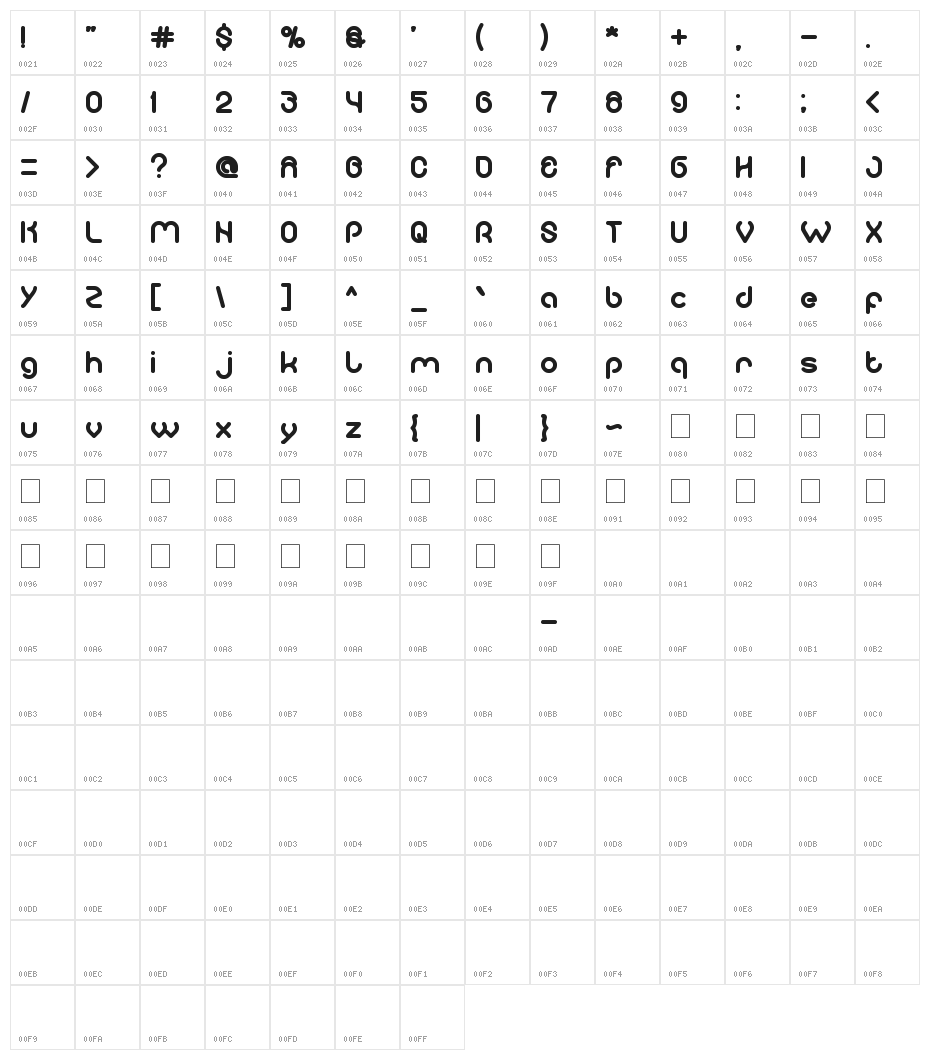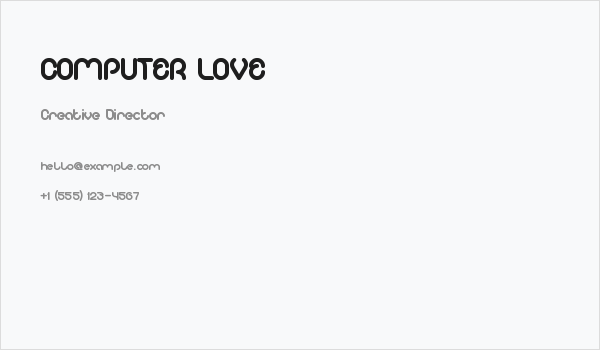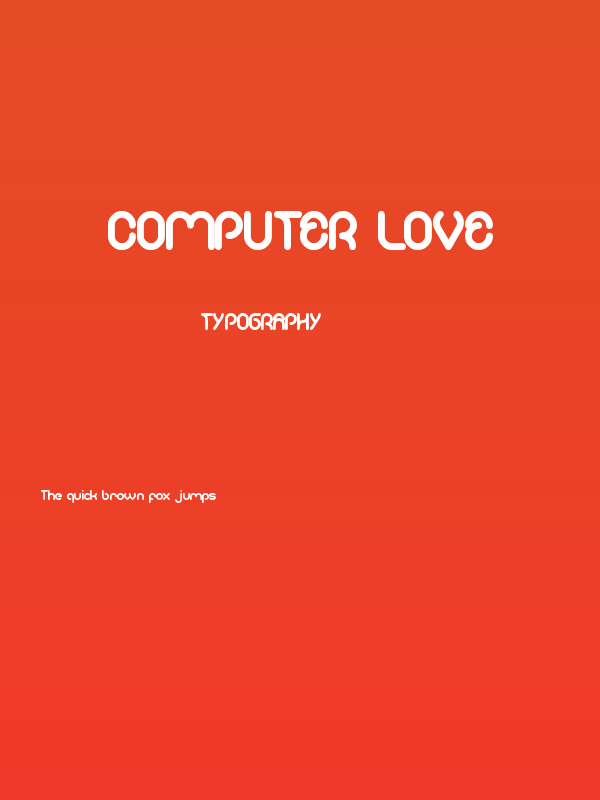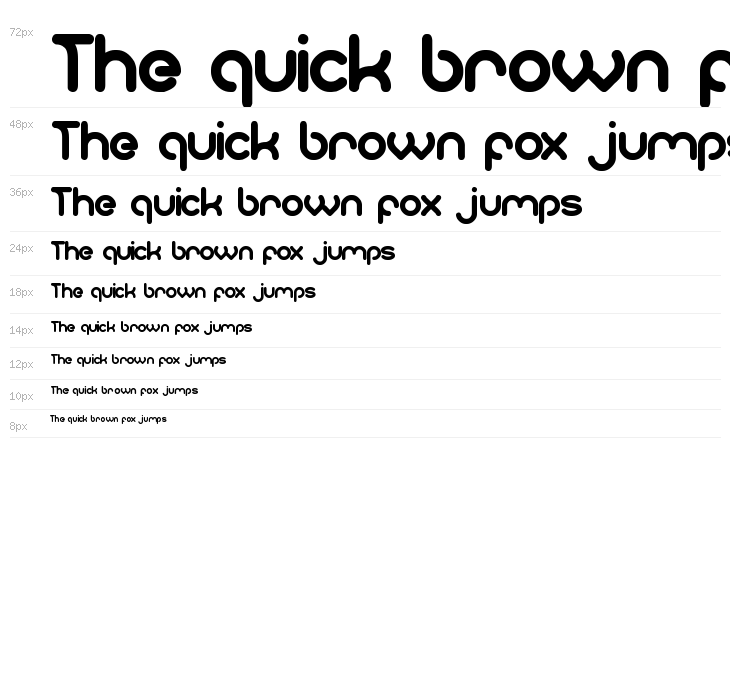
COMPUTER LOVE Font
COMPUTER LOVE Description
This font features a bold, rounded style with a futuristic and playful appearance. The characters are evenly weighted, giving a uniform look across both uppercase and lowercase letters. The rounded edges and consistent stroke width contribute to a friendly and approachable aesthetic. The numbers and special characters maintain the same rounded and bold characteristics, ensuring coherence throughout the typeface. This font's design is reminiscent of retro digital displays, making it suitable for projects that aim to evoke a sense of nostalgia or modernity.
| Proposed Projects | Ideal for digital interfaces, retro-themed designs, children's books, and playful branding. |